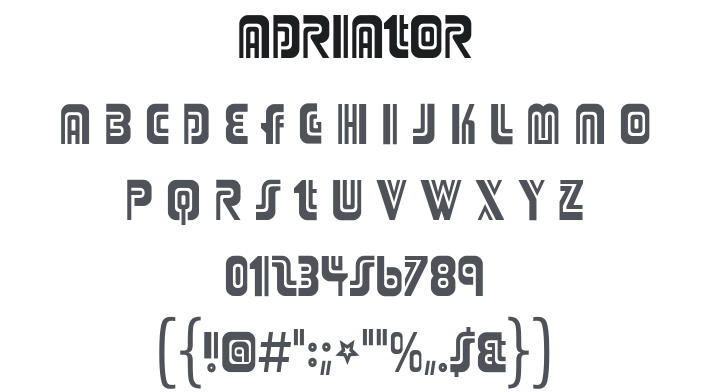
Adriator Font
About Adriator
Adriator is a quirky groovy display typeface born from the logo of an old Irish radiator brand. Its distinctive double-stripe letterforms create an odd semi-futuristic art deco look — somewhere between a 1970s drive-in snack bar and Y2K experimentation. Use it for retro-themed posters, eclectic branding, funky headlines, or any design that calls for an unconventional, playful personality.